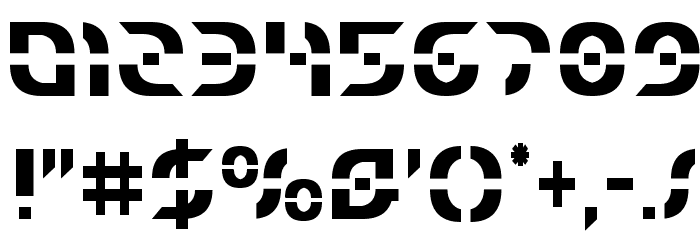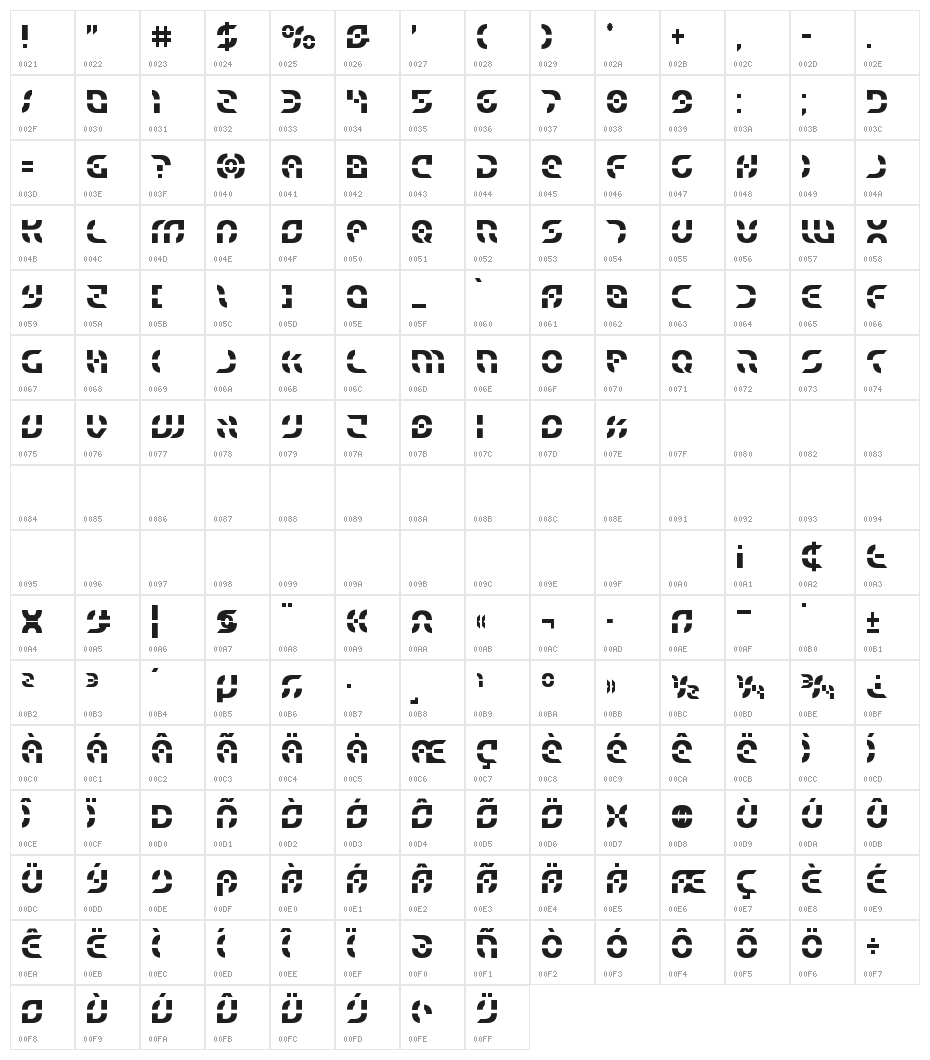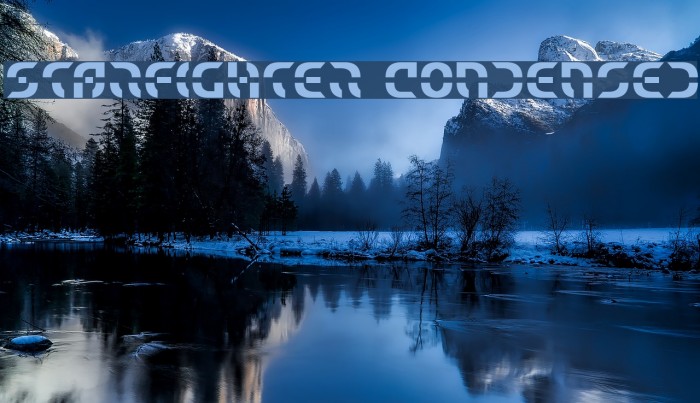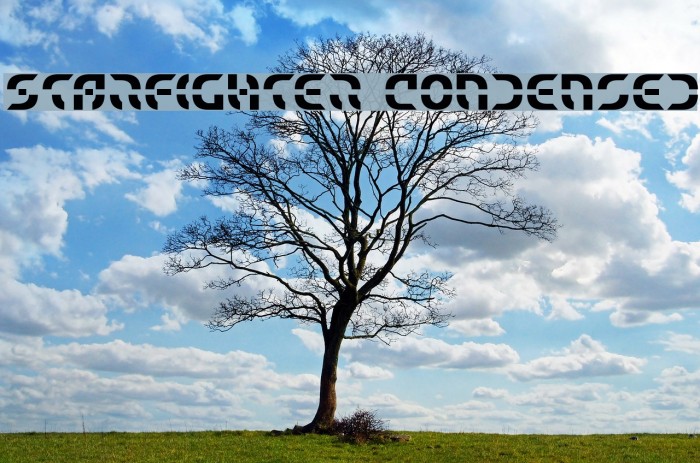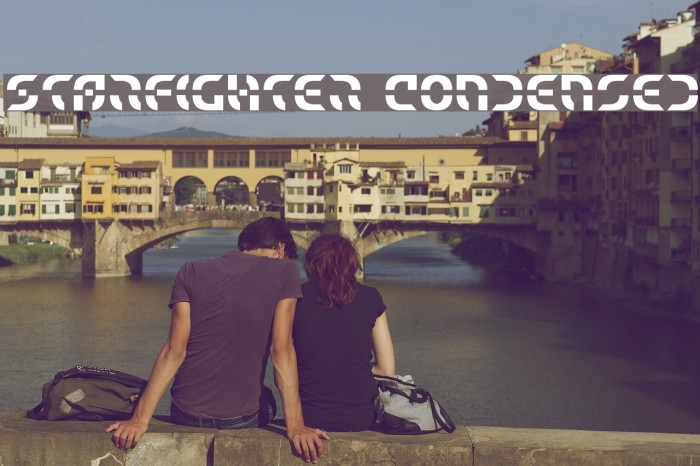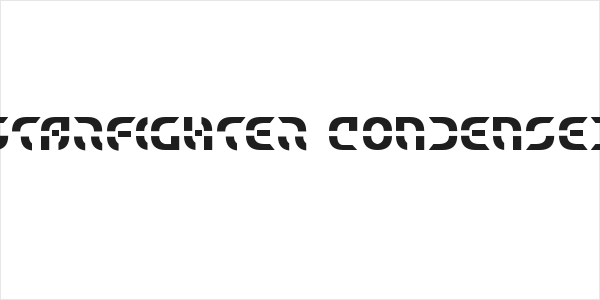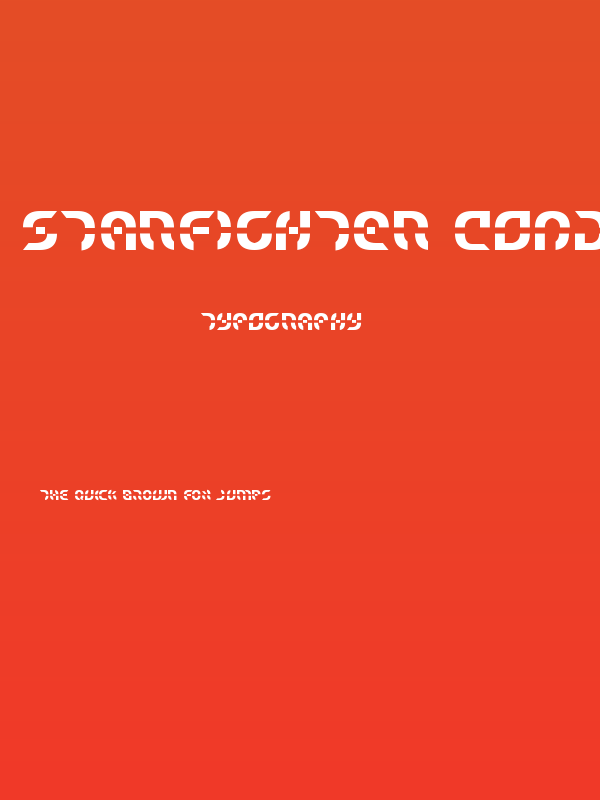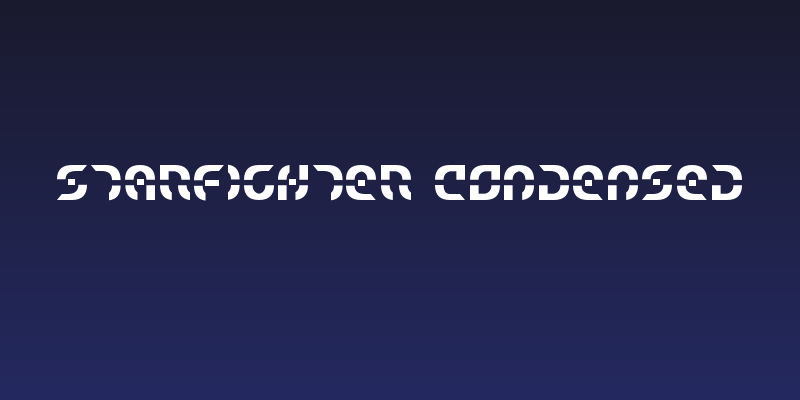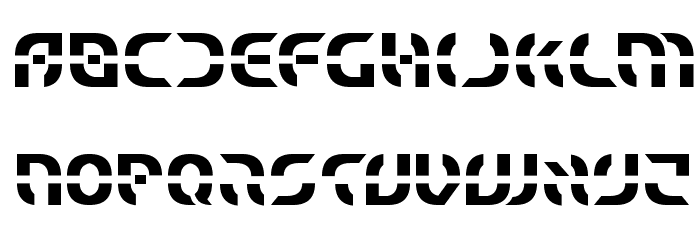
Starfighter Condensed Font
Starfighter Condensed Description
This font features a futuristic and geometric design with a condensed structure. The characters are composed of bold, solid lines with distinct cutouts, creating a stencil-like appearance. The angular and sharp edges give it a modern and tech-inspired look. The uppercase and lowercase letters maintain a consistent style, enhancing the uniformity of the font. The numbers and special characters follow the same design principles, ensuring a cohesive visual identity across all elements.